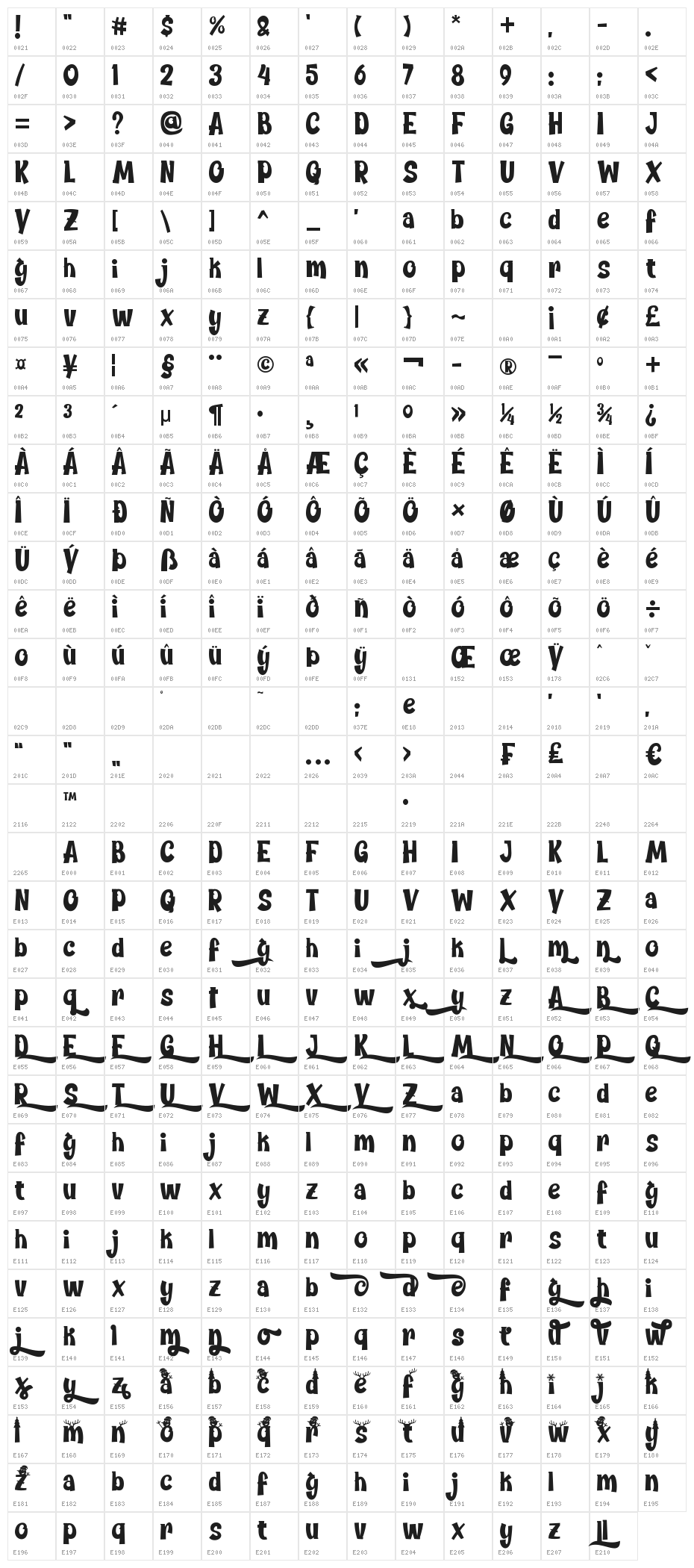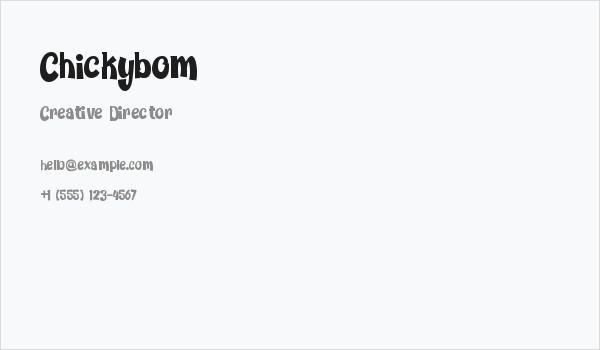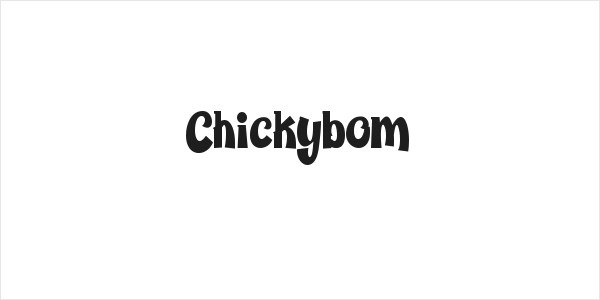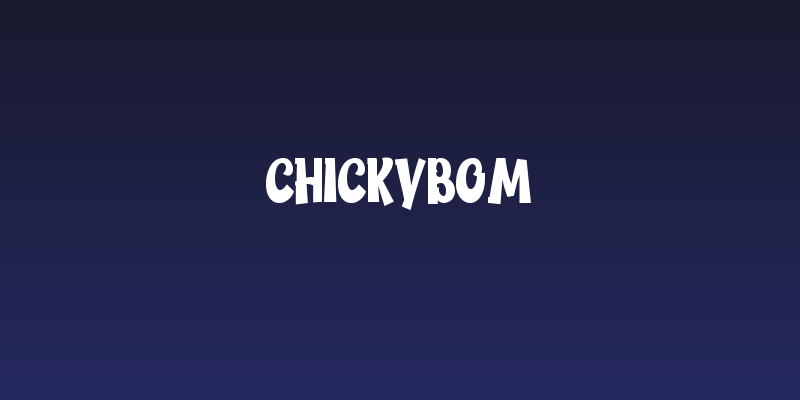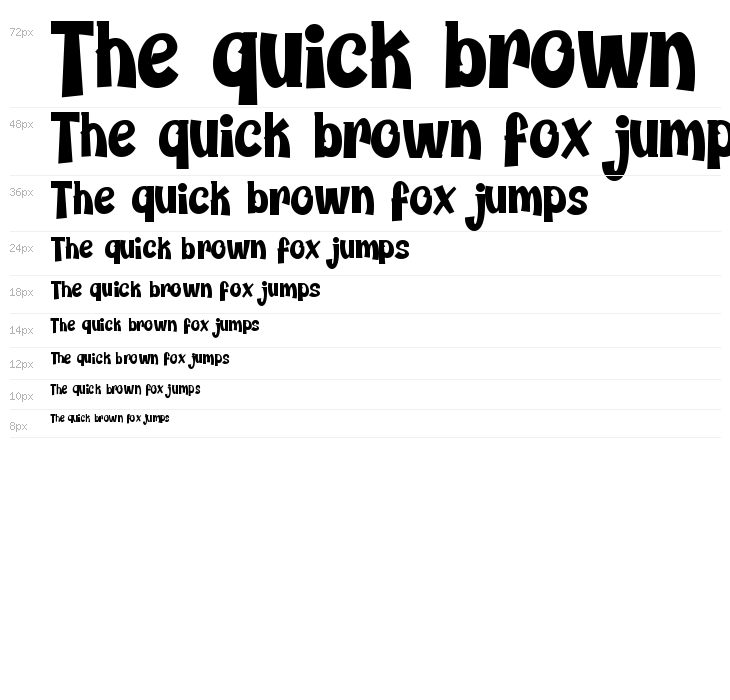
Chickybom Font
Chickybom Description
This playful and bold font features a whimsical and dynamic style, characterized by its exaggerated curves and varying stroke widths. The uppercase letters are robust and slightly irregular, giving a sense of movement and energy. The lowercase letters maintain a consistent style, with some characters displaying unique, playful twists. The numerals are bold and easily readable, matching the overall lively aesthetic. Special characters are creatively designed, adding to the font's charm. This font is perfect for projects that require a fun and engaging visual impact.
| Overall Style | Playful, Whimsical |
| Proposed Projects | Ideal for children's books, playful branding, party invitations, and creative posters. |